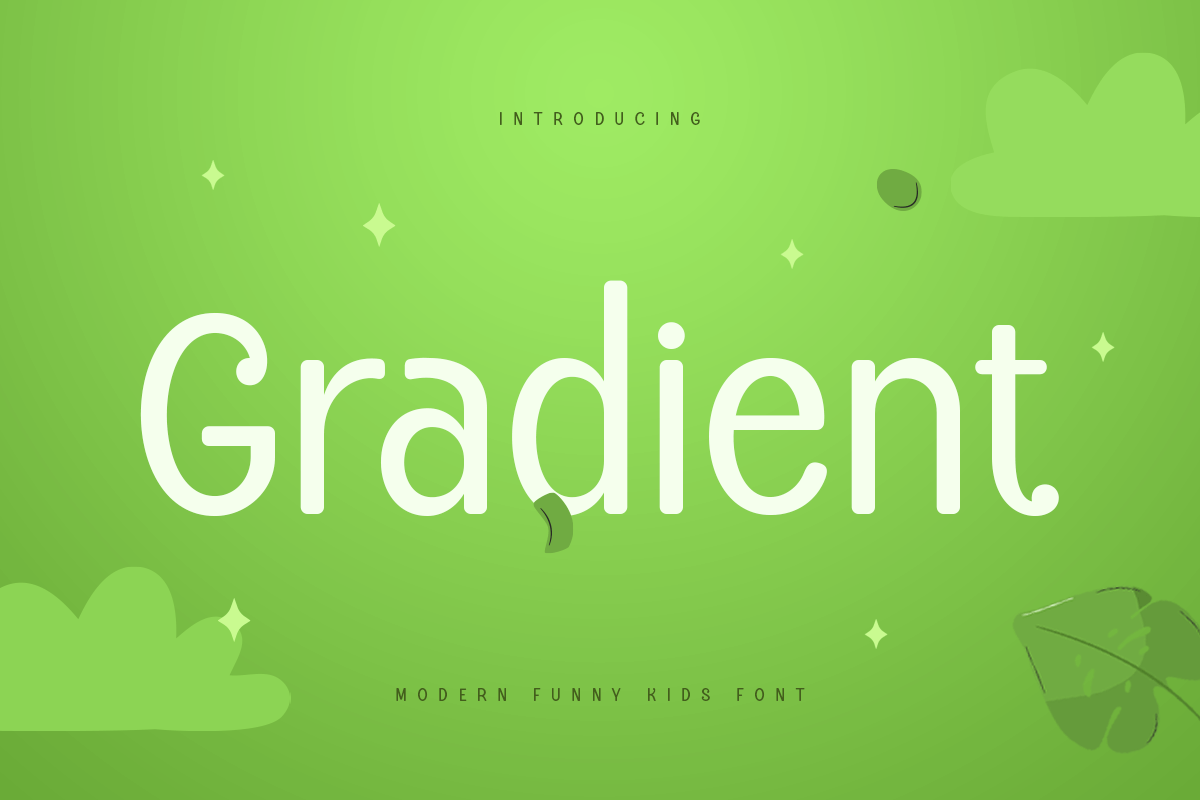
Gradient
-Modern Funny Kids FontGradient is a fun and playful cute typeface. It is perfect for logotype, flyer, greeting cards, packaging, book cover, printed quotes, headings, etc.
Gradient - Modern Funny Kids Font
Gradient is a modern and cheerful font designed to capture the fun and innocence of childhood. With its playful shapes and vibrant energy, it’s an excellent choice for creating designs aimed at kids, such as toys, books, games, and educational materials. Gradient adds a touch of whimsy and charm that instantly resonates with young audiences and their families.
Inspired by the lively and colorful world of children, Gradient’s quirky letterforms and bold personality create a delightful visual impact. Whether you’re designing for a playful brand or creating event materials, this font will ensure your work stands out with its fun and modern style.
Unlock endless creative possibilities with Gradient, a font that celebrates joy, humor, and creativity in every stroke.
Gradient Modern Funny Kids Font Features:
Playful and Modern Character Set
Unique Punctuation, Numbers, and Symbols